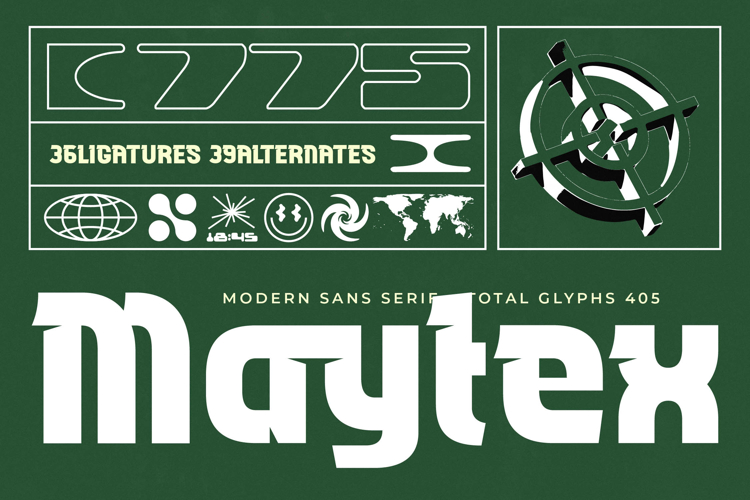
Maytex - Modern Sans Serif Font
Unleash unparalleled visual impact with Maytex - Modern Sans Serif Font, a typeface meticulously crafted for the contemporary design landscape. This bold and distinctive sans-serif commands attention with its robust letterforms and clean, geometric aesthetic. Designed to convey strength and sophistication, Maytex - Modern Sans Serif Font is the ultimate choice for projects demanding a powerful yet refined presence, ensuring instant engagement for any cutting-edge creative endeavor.
Discover a wealth of creative possibilities within Maytex - Modern Sans Serif Font, featuring an impressive suite of 35 ligatures and 39 alternates. These extensive stylistic options ensure remarkable versatility, allowing designers to customize typography for truly unique expression. With a total of 405 glyphs, this font provides the tools to achieve intricate and harmonious layouts, setting your designs apart with sophisticated elegance and dynamic rhythm.